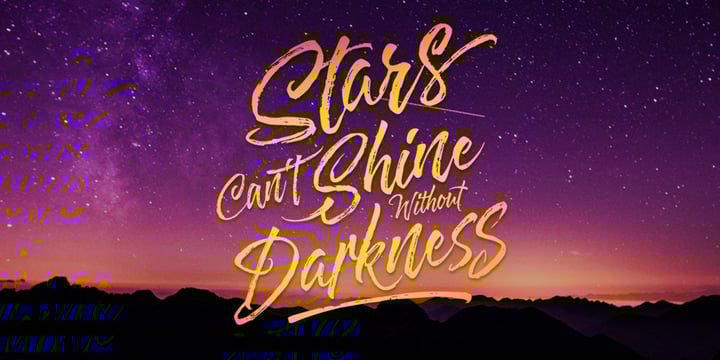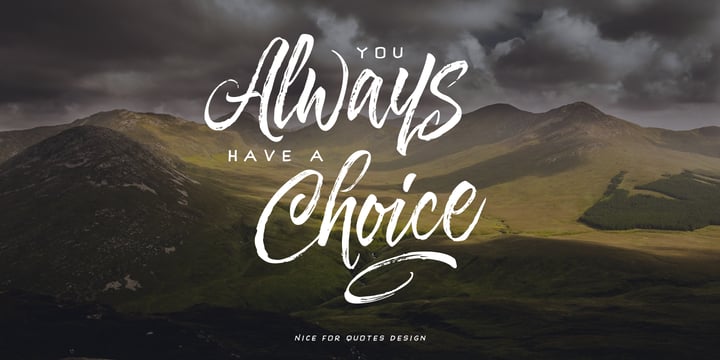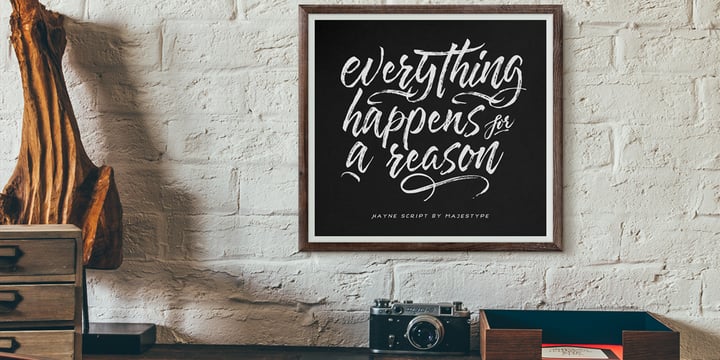
Hayne Script
von Majestype
Die Schriftfamilie Hayne Script wurde von Dexsar Harry Anugrah entworfen und von Majestype veröffentlicht. Hayne Script enthält 6 Stile und Familienpaketoptionen.
Hayne Script + Sans were made with a brushpen and regular pen. It comes with a lot Glyph, 3 style for Script, international languages for Script and Standard Glyph for Sans Version, it can be a new great weapon for your next project. We deliberately made the dying effect in this font to make it look natural and as a handwriting would be. Also, we create the clean version to make this font suitable for headline. Support OpenType features, that can allow you to choose a character that you like and suitable for the project you're working on. If you want to access all character, you need software that support OpenType Feature like Illustrator, Photoshop, Indesign & CorelDraw. Hayne Script & Sans is suitable for tshirt design, photography, invitation, ID card, tattoo, poster, logo, title, branding and etc. Tips : This font will looks nice when work together, script & sans :)